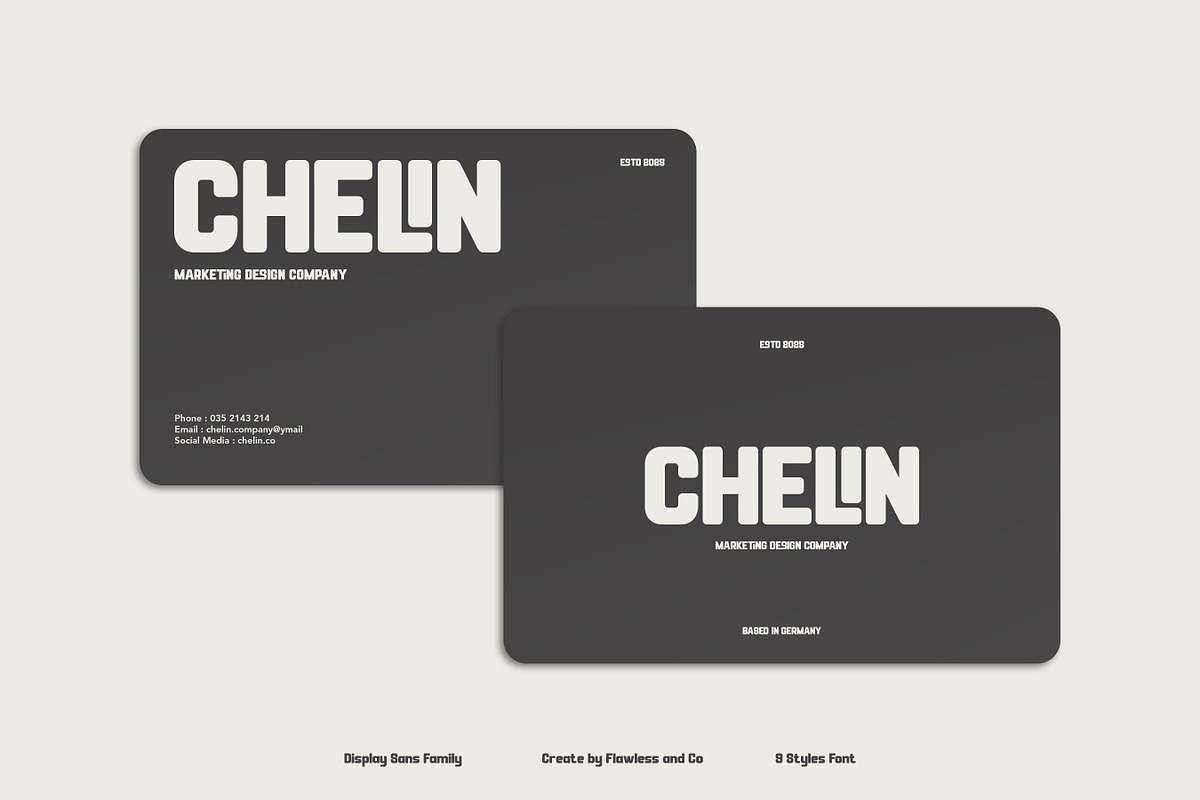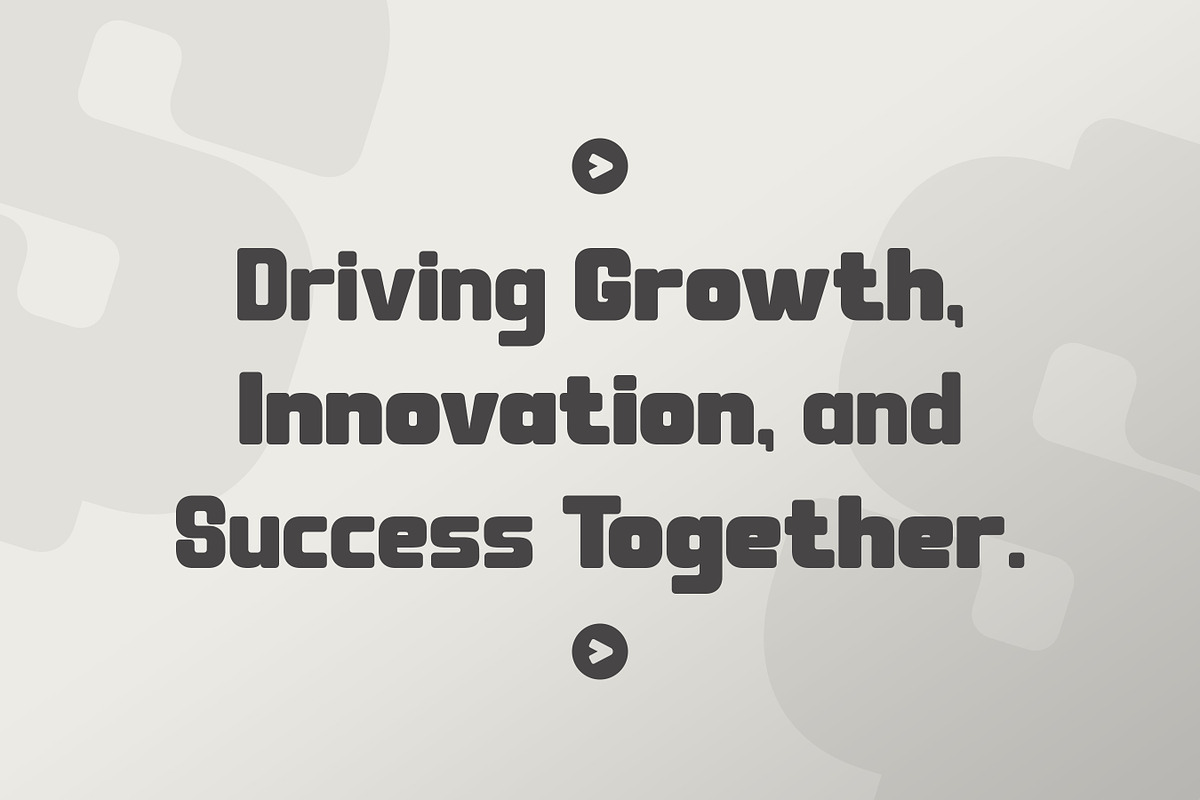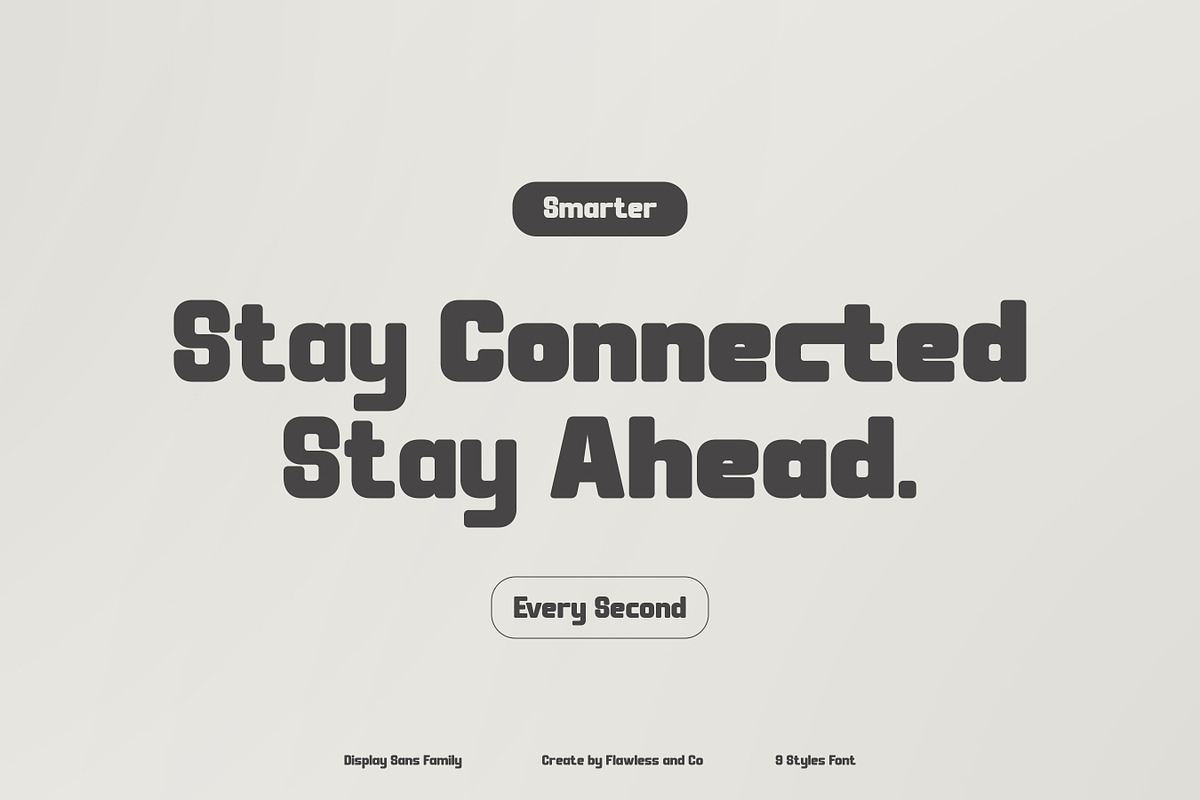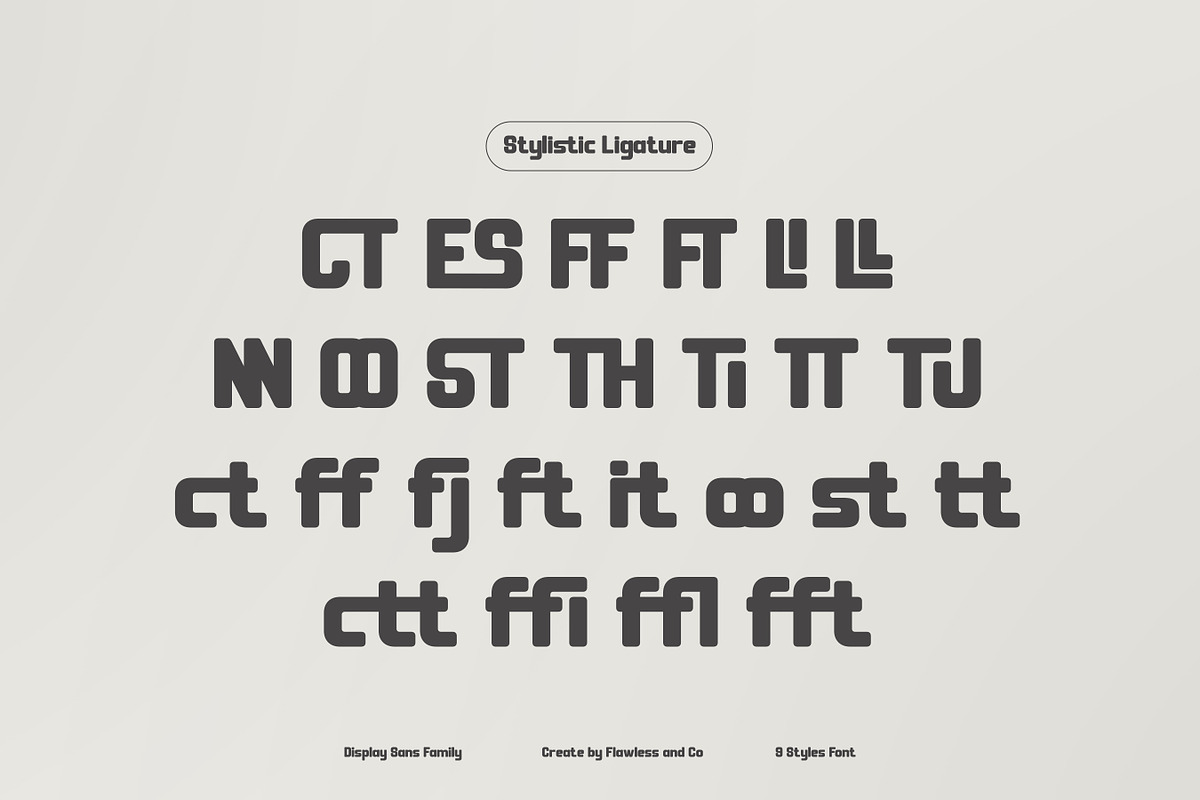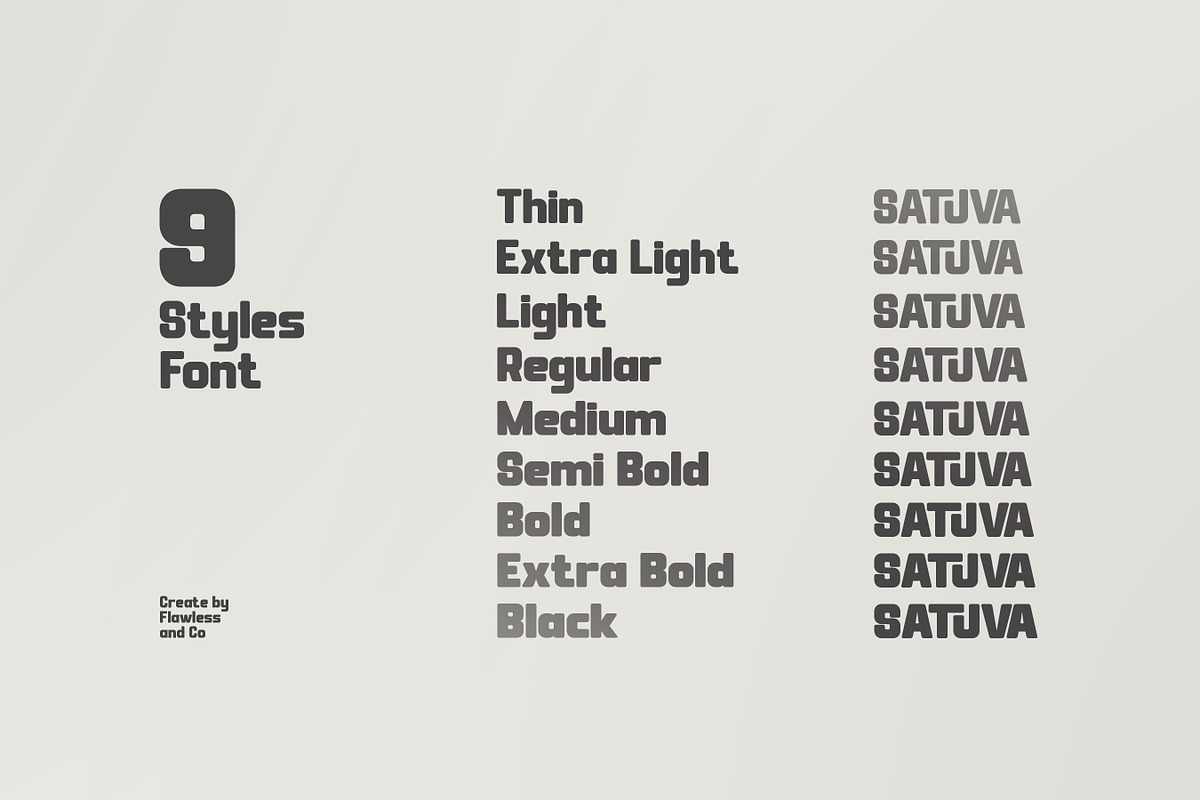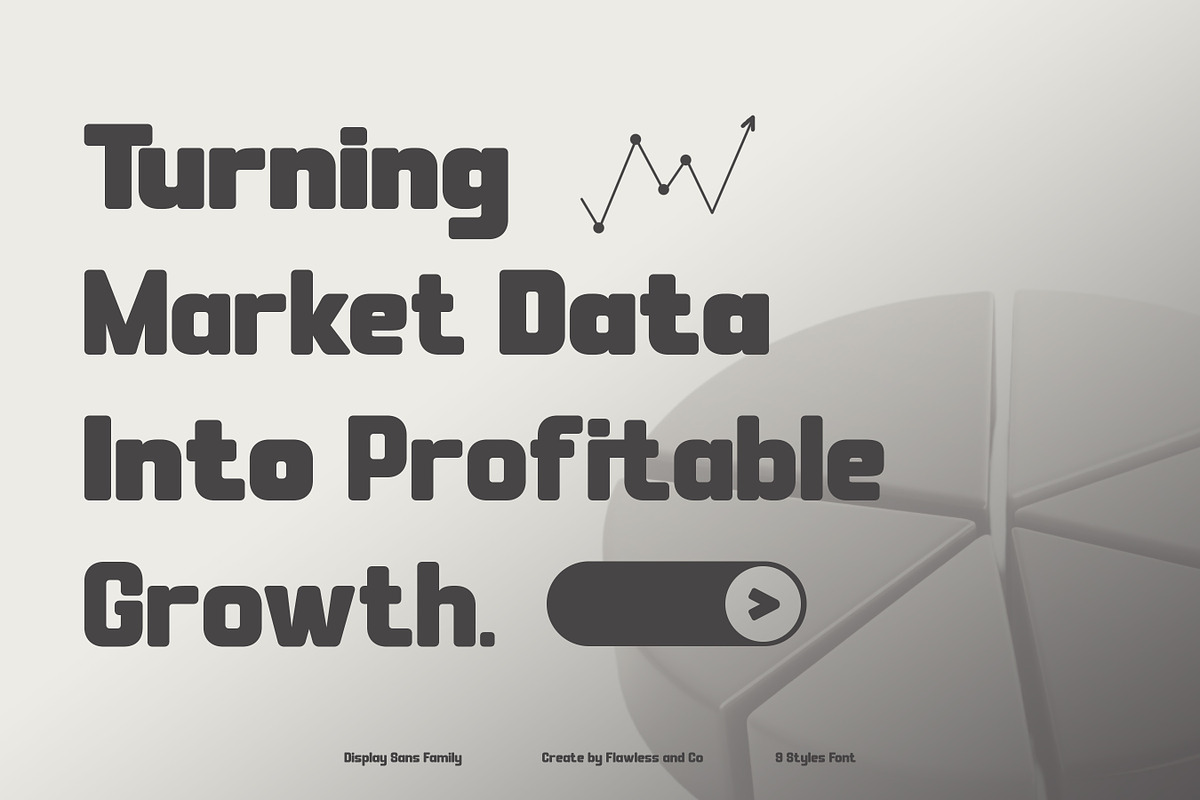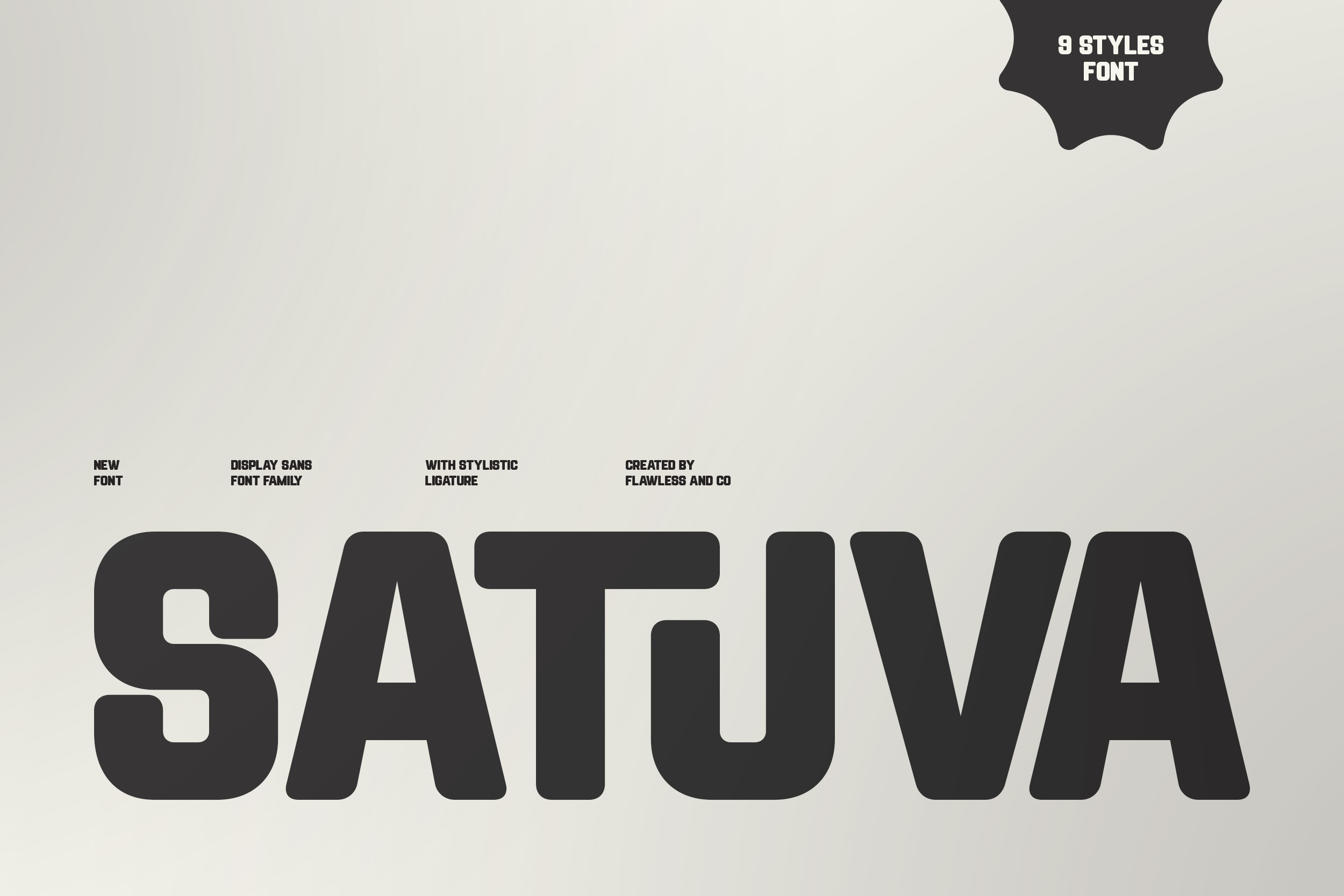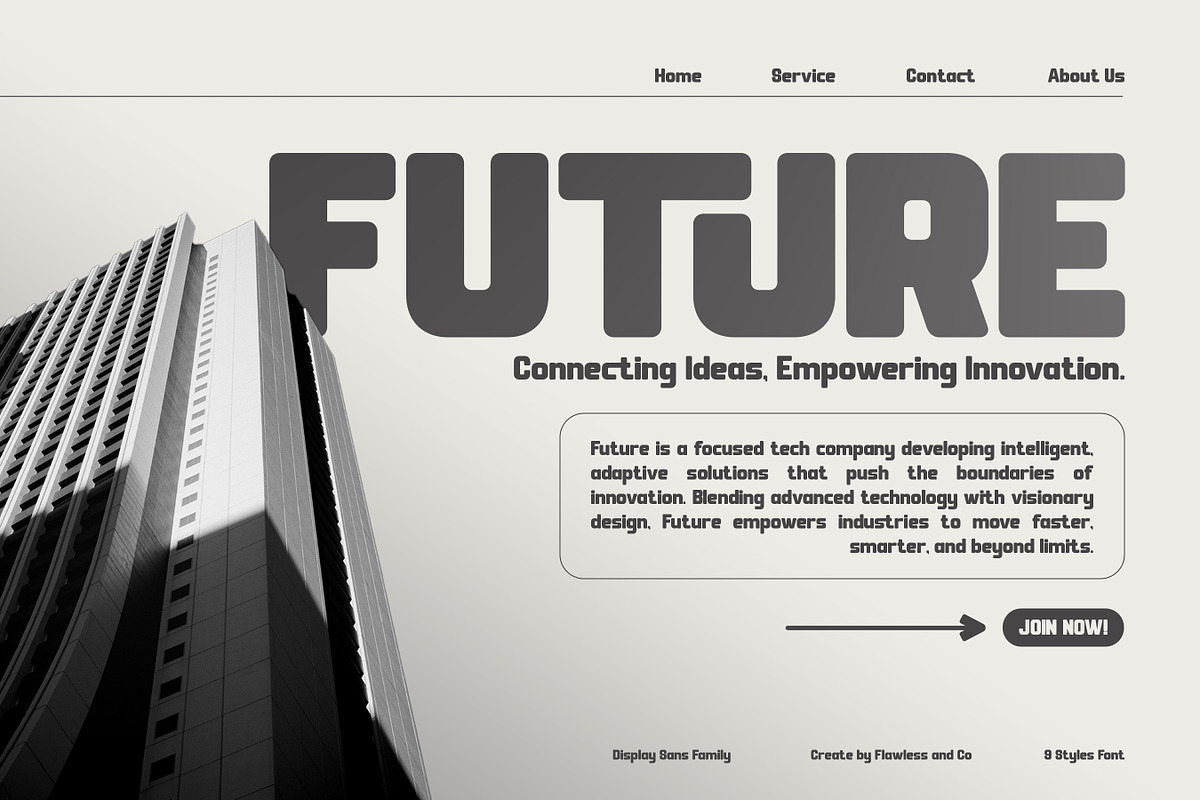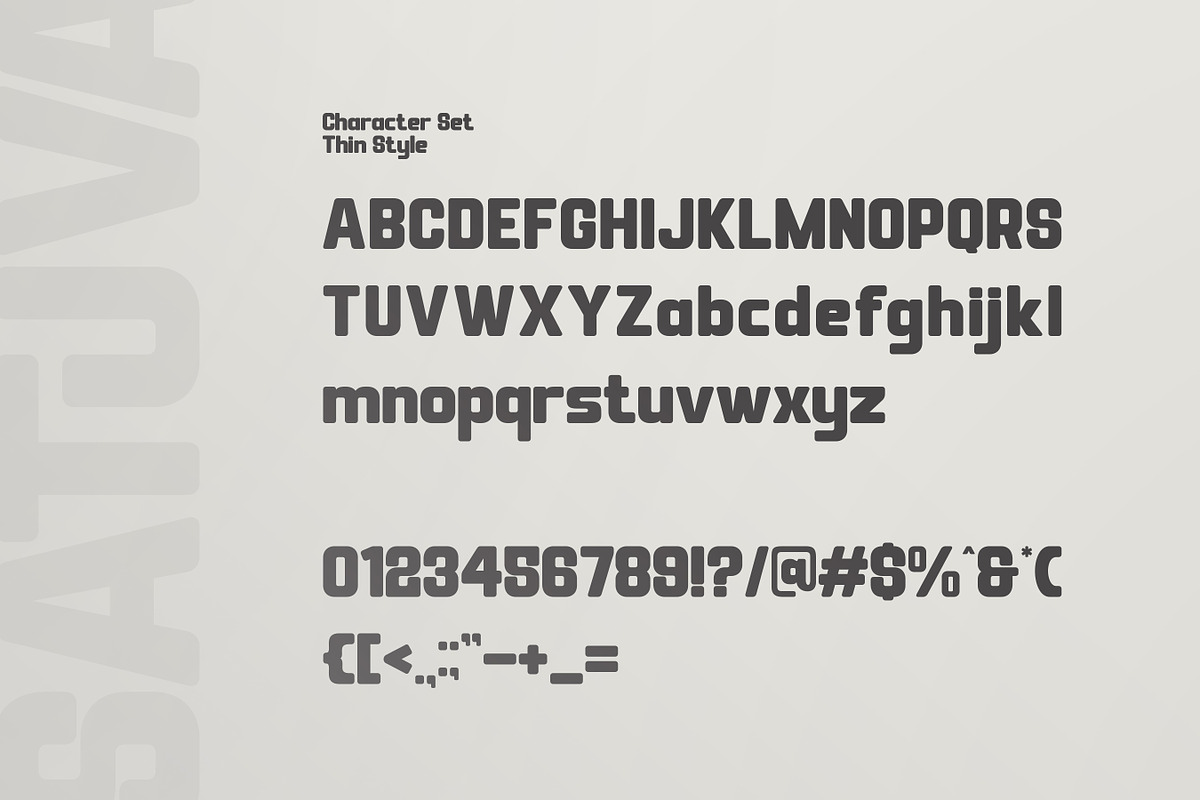
Satuva - Family Sans Serif Font
Satuva - Modern Sans Serif Font
Satuva is a bold and modern display sans serif font family designed to make a statement. Featuring smooth rounded edges and strong geometric shapes, this font blends a contemporary aesthetic with high readability, making it perfect for impactful branding and design projects. With 9 versatile styles, Satuva offers flexibility for both digital and print applications — from bold headlines and attention-grabbing logos to sleek packaging and editorial layouts. Its unique ligature set adds personality and flow to your typography, helping your design stand out with confidence and modern charm.
Who Should Use Satuva ?
Satuva is made for designers, creatives, and brands who want to project a bold, confident, and modern identity.
This font is ideal for:
- Graphic designers who want strong and stylish typography for brand projects
- Businesses and startups aiming for a professional yet approachable visual look
- Creatives working on editorial layouts, packaging, or advertising designs
- Logo and branding specialists seeking a clean, geometric sans serif with personality
- Agencies or freelancers who need a versatile display font family for multiple uses
A Must-Have Font for "Brand and Logo" Creators and Designers
Satuva is a must-have for brand and logo creators who value clean aesthetics and professional impact.
Its geometric balance and rounded details give every word a sense of modern confidence — perfect for designers who want their logos, titles, and brand visuals to stand out. From minimal branding projects to bold digital displays, Satuva brings versatility and clarity that elevate any design. Whether you’re crafting a sleek tech logo or a lifestyle brand identity, this font family ensures your message looks refined, consistent, and memorable.
Why Choose Satuva for Brand and Logo Projects?
Satuva stands out for its strong visual presence and flexible structure — making it an ideal choice for brand and logo design. Its rounded yet bold sans-serif style gives every letter a distinct personality while maintaining perfect readability and balance. With 9 font styles and stylistic ligatures, Satuva allows designers to experiment with tone and hierarchy, ensuring that each logo or brand identity feels both modern and timeless. Whether you’re designing for tech, fashion, or creative industries, Satuva delivers the clarity, strength, and adaptability every successful brand needs.
Suitable For:
- Brand identity and logo design
- Product packaging and label design
- Posters, headlines, and advertising materials
- Website headers and digital marketing assets
- Editorial layouts and creative magazines
- Merchandise, apparel, and print design projects
- Modern startups and tech company branding